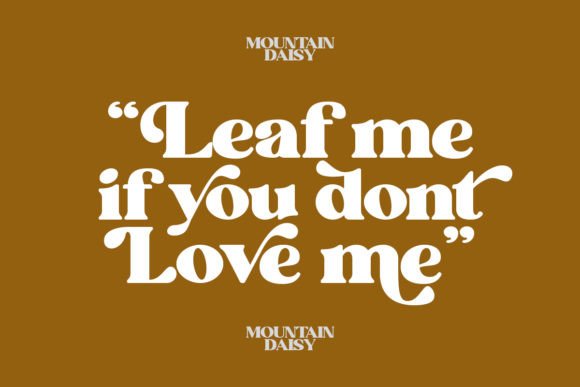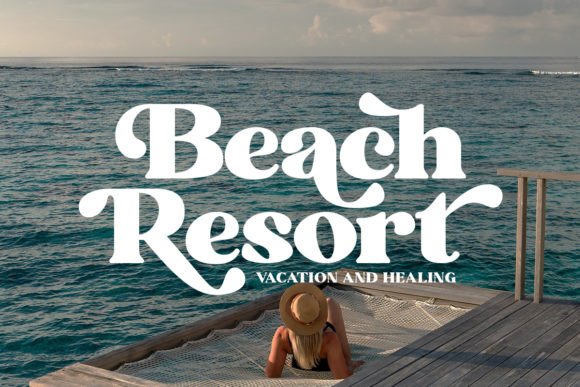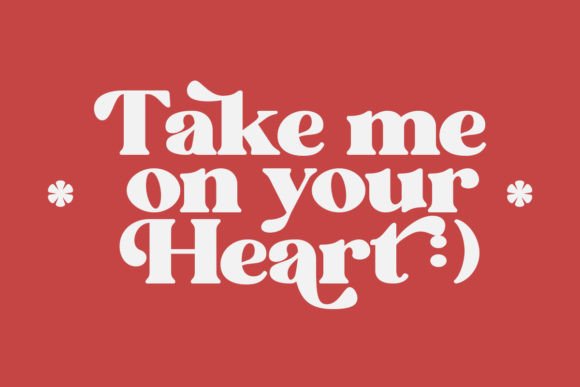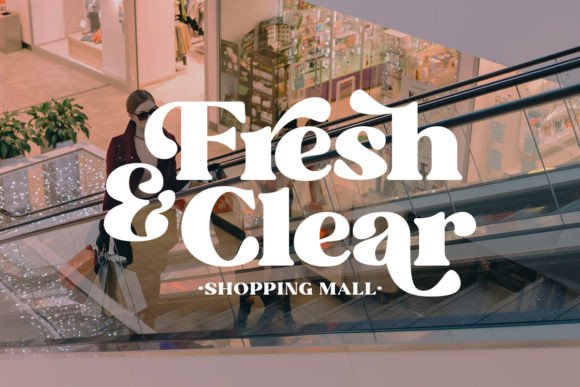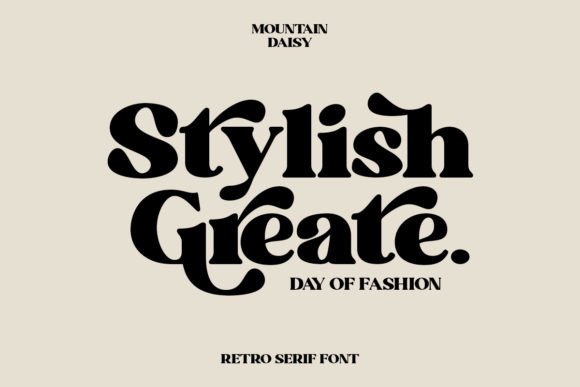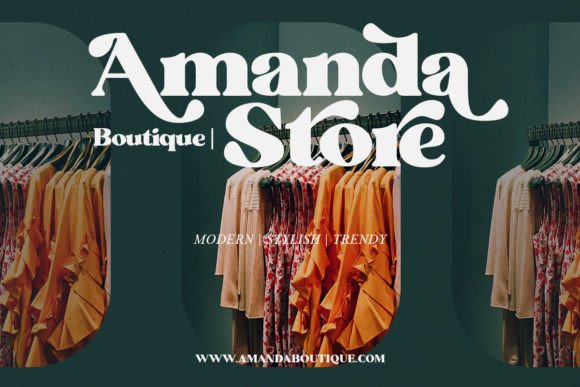
Introduction to Mountain Daisy Font
Mountain Daisy is retro serif font, inspired by a typeface that embodies the characteristics and aesthetics of typography styles from past eras, from the early to mid-20th century.
This font include decorative elements with the uppercase, lowercase, and ligatures which add flair and uniqueness to the typography This great for titles, logos, quote, packaging, headings, or any design to make your awesome project.